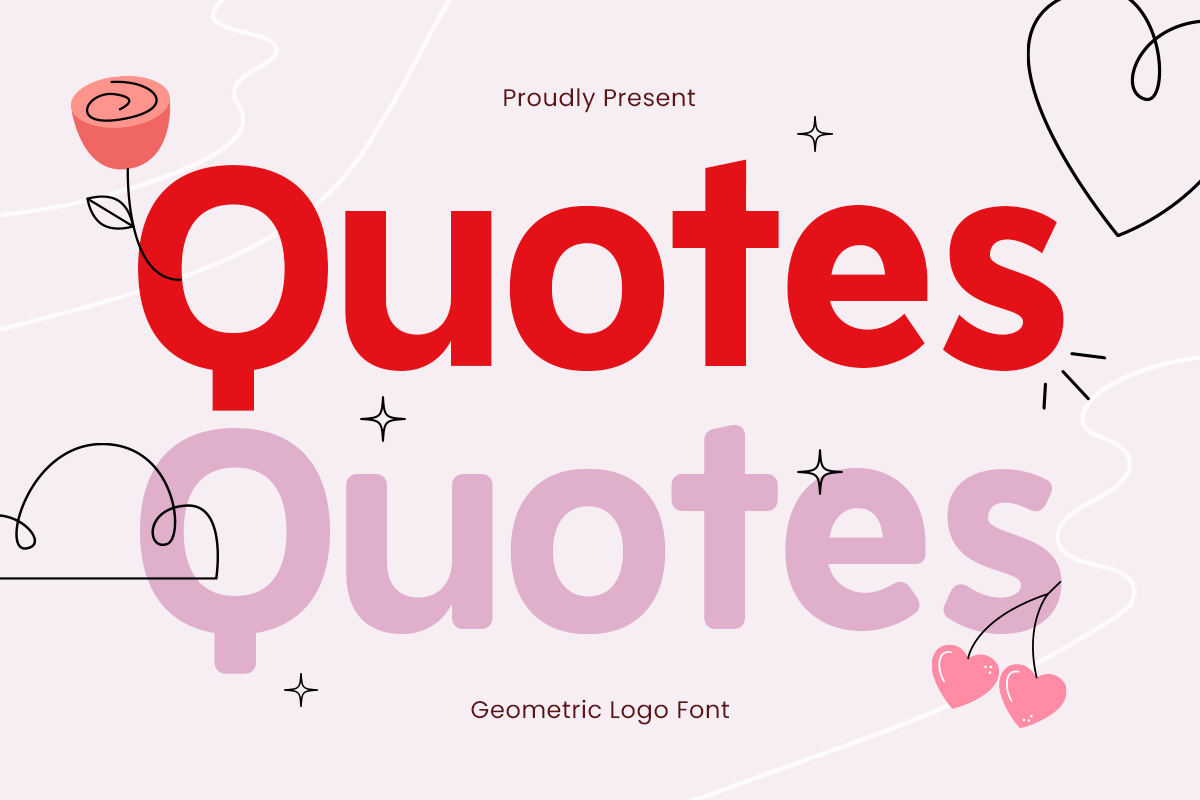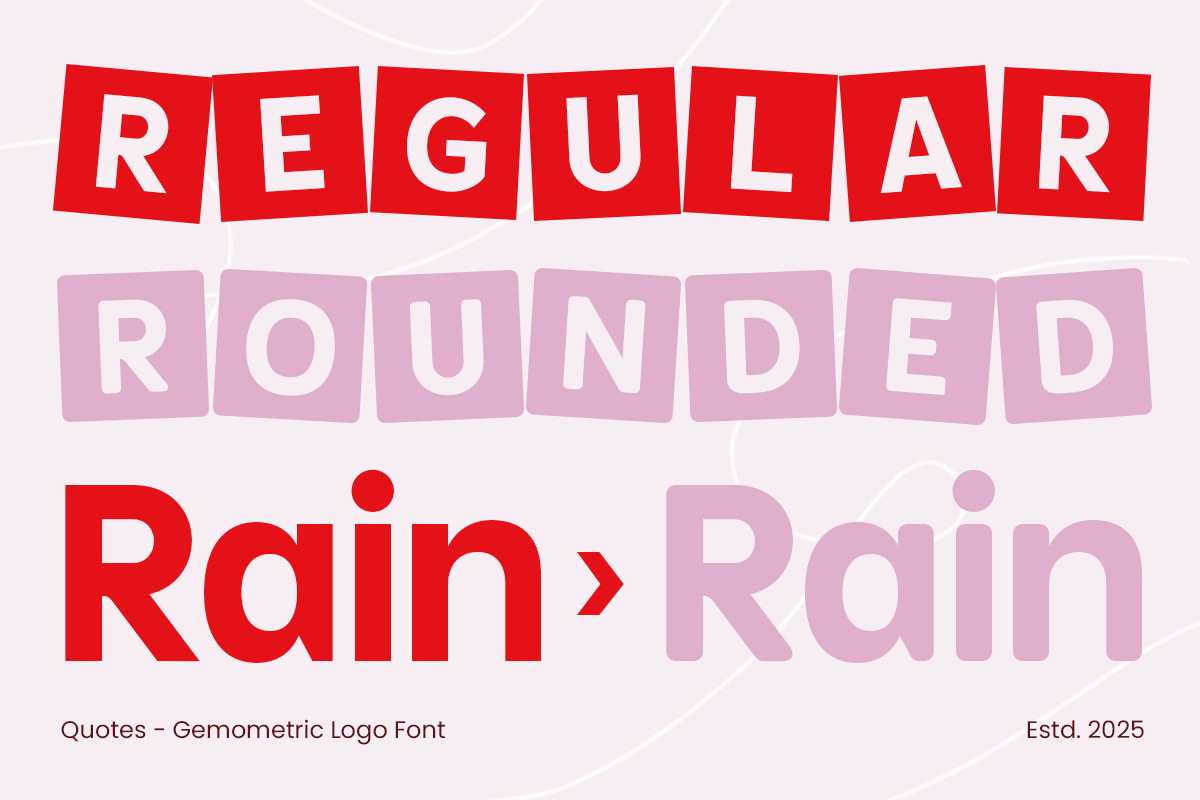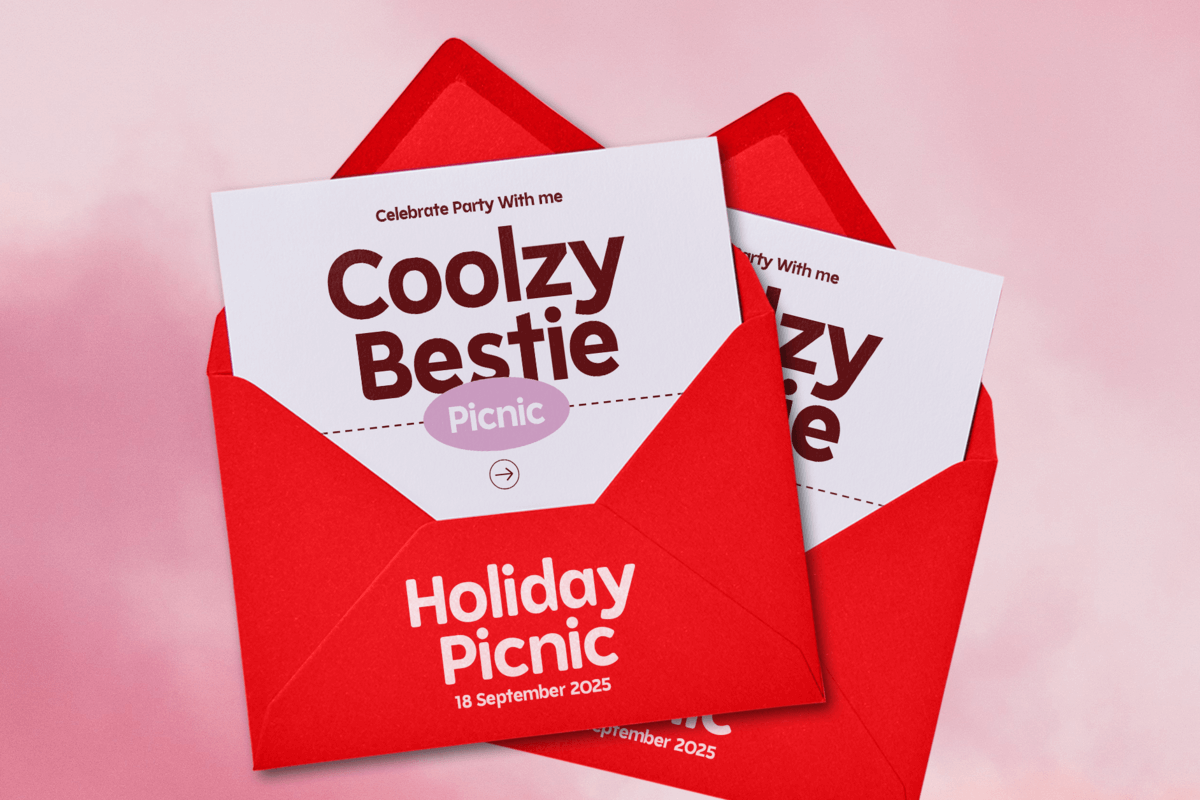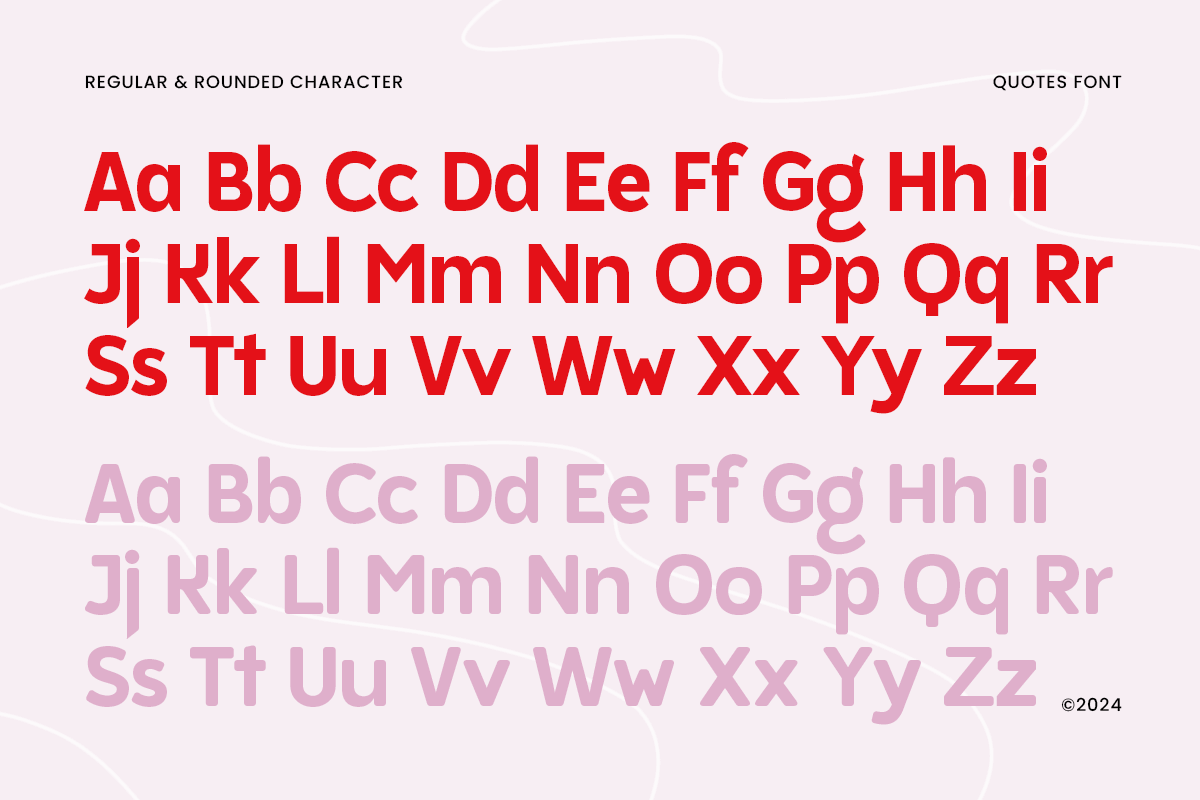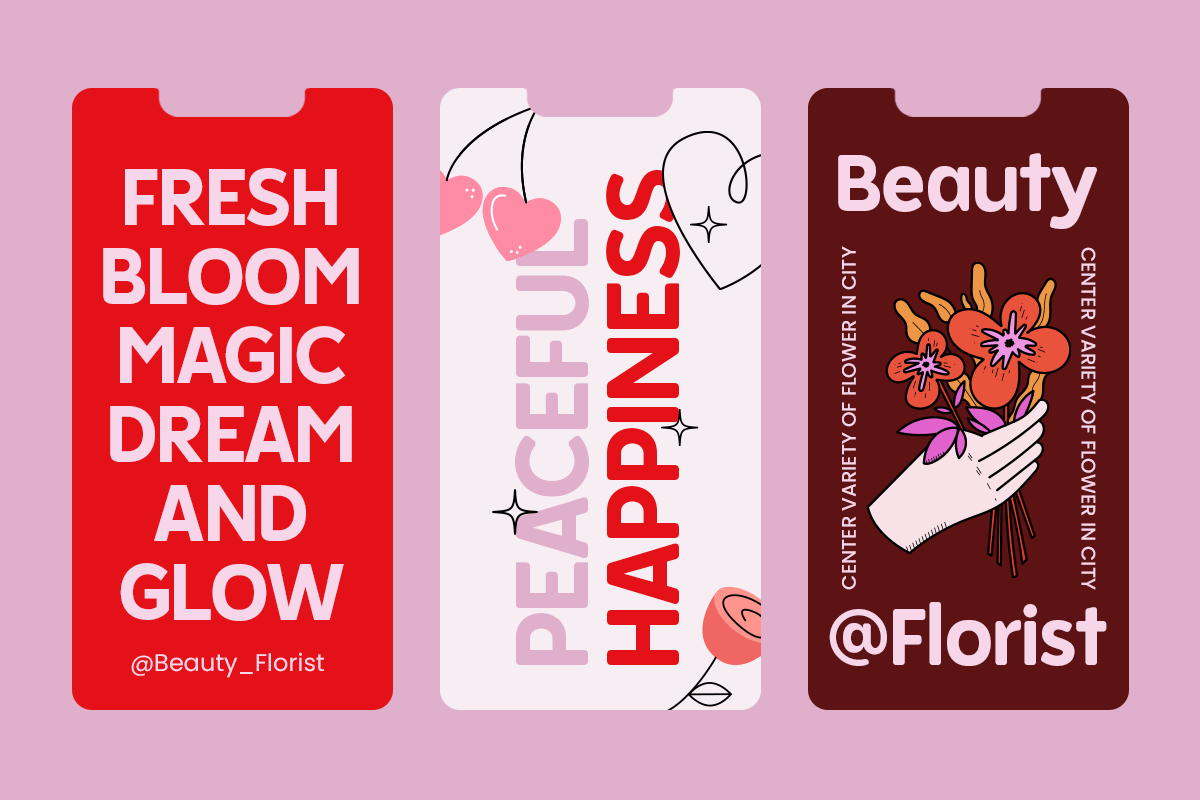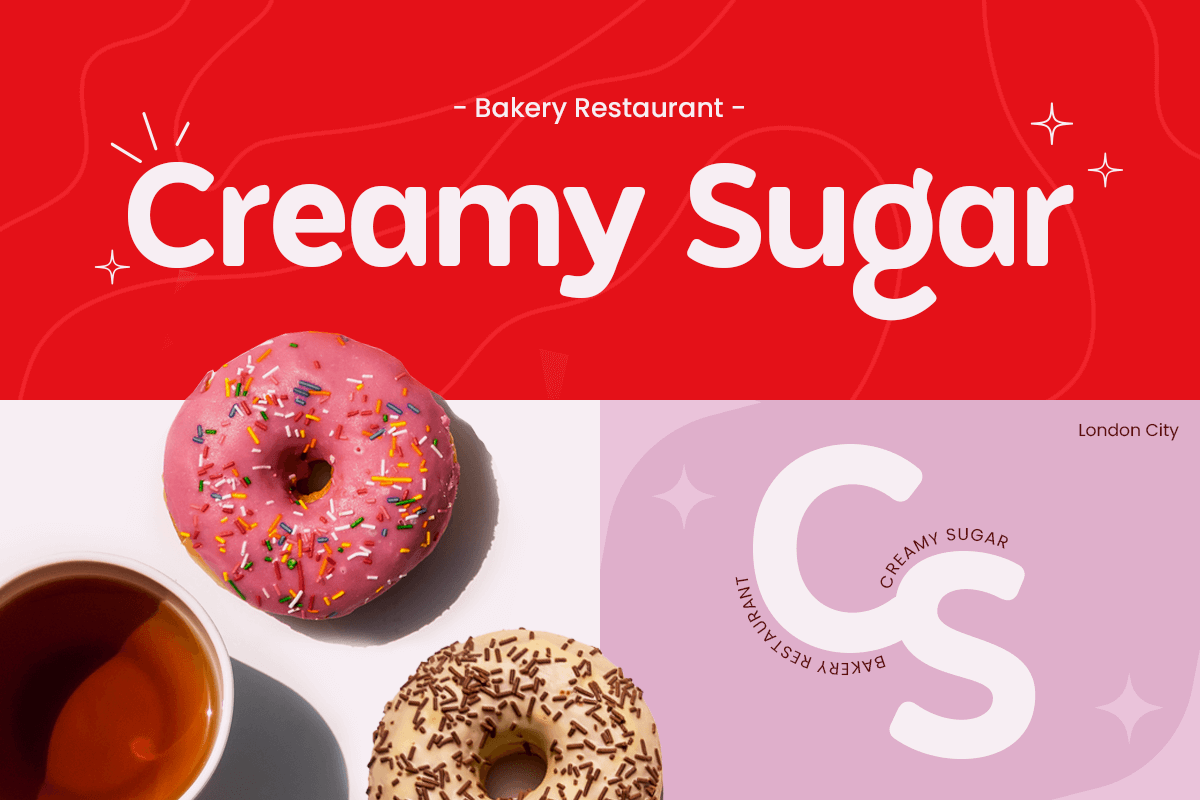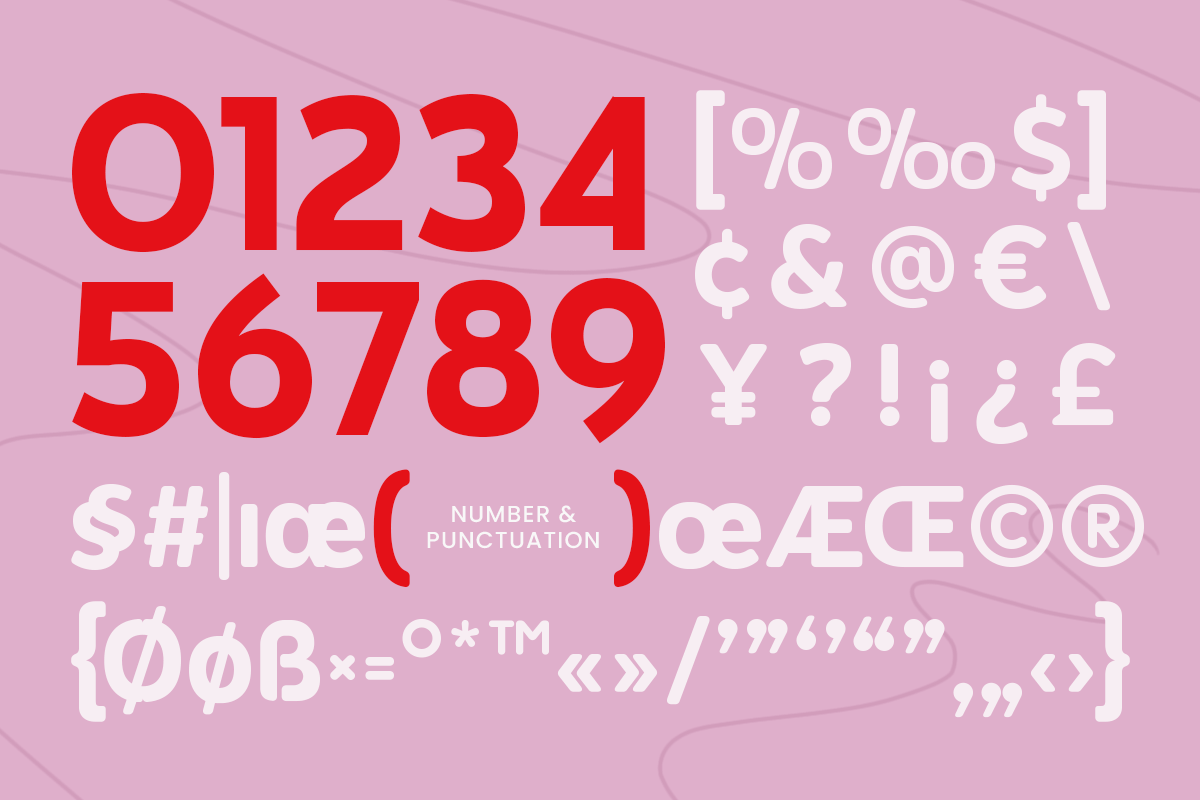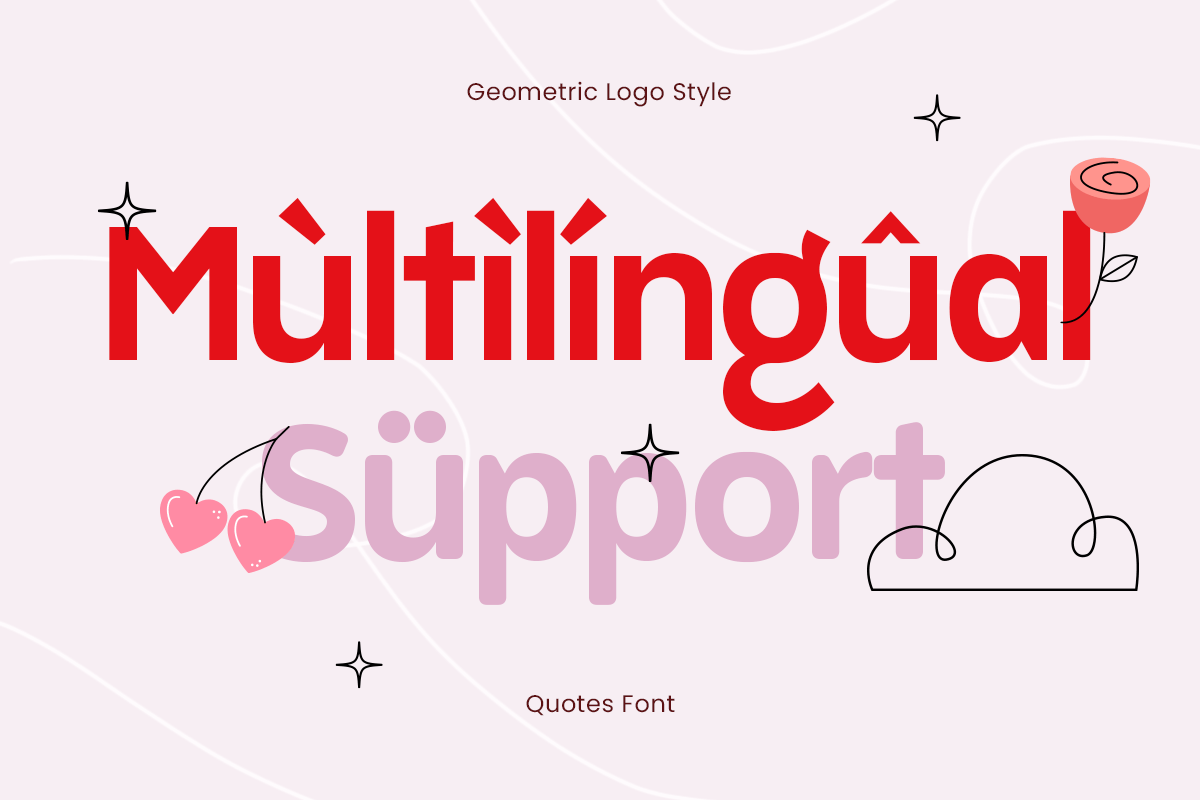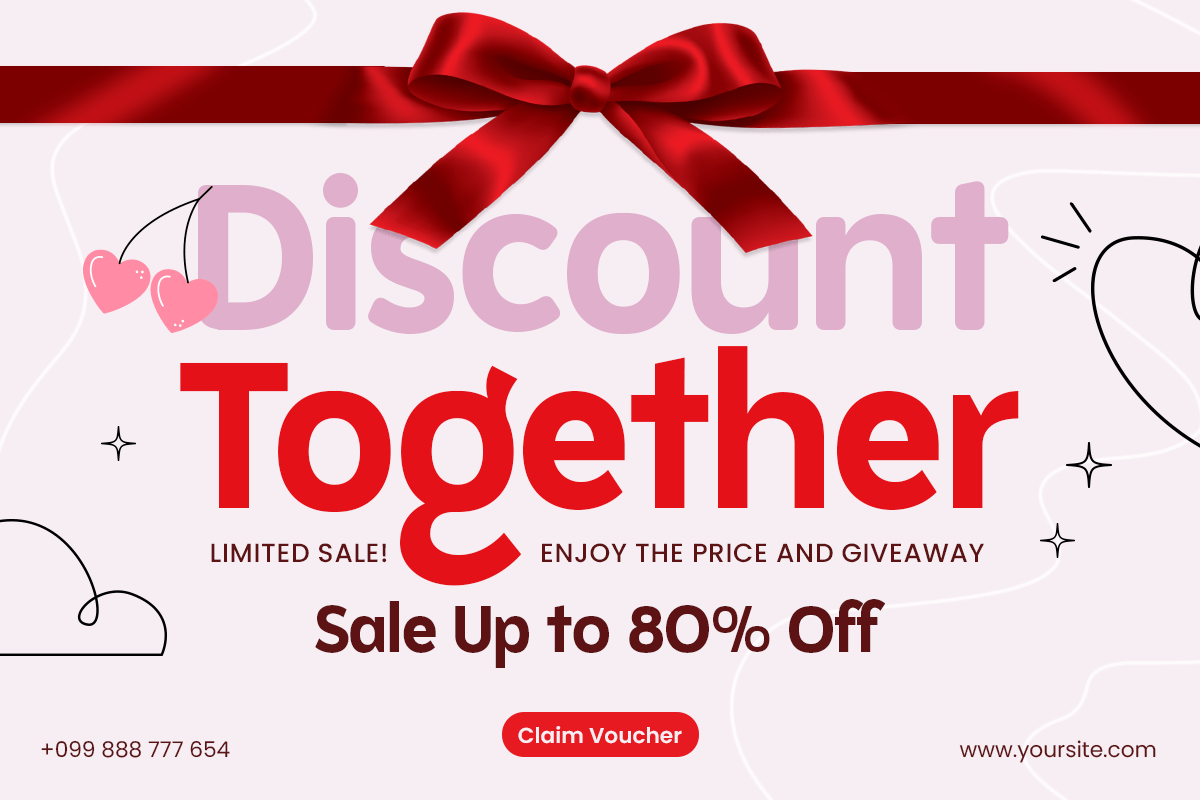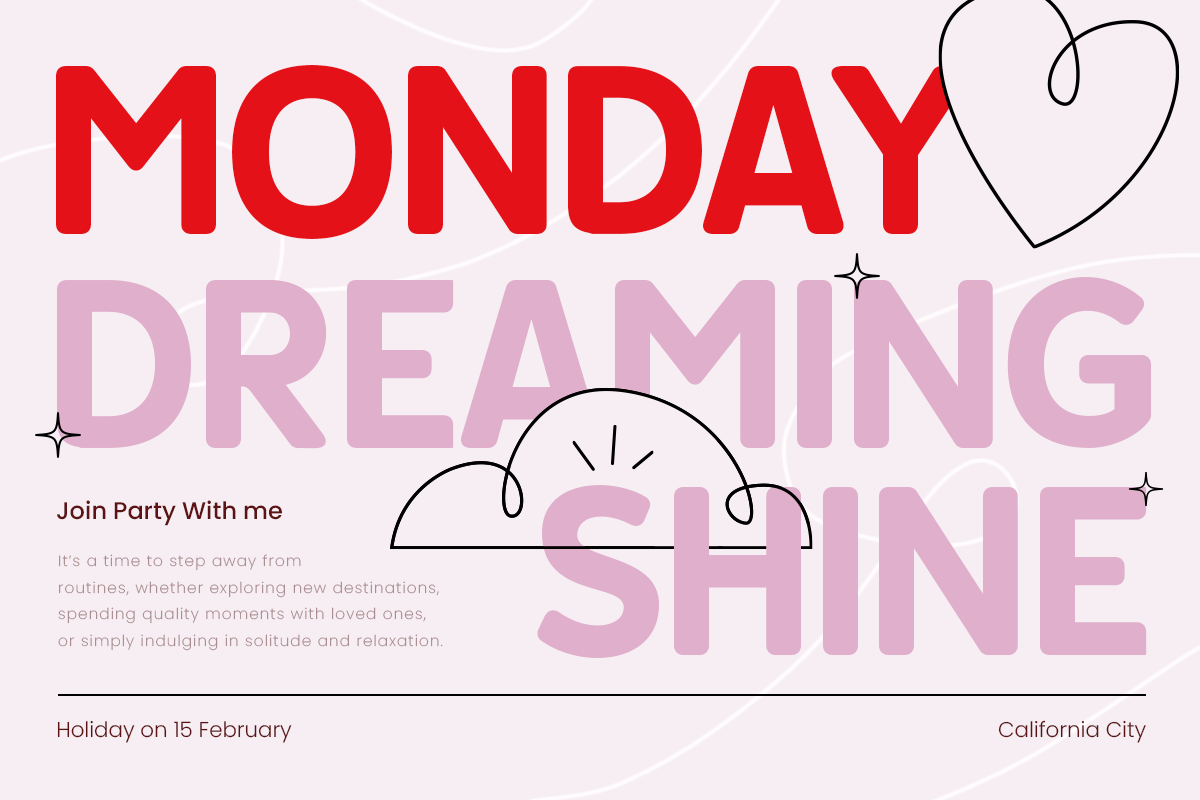
Quotes – Geometric Feminine Women Day Font
Inspired by the strength and grace of women, Quotes is a geometric font designed to celebrate creativity and empowerment. Its clean lines and balanced structure reflect modernity while maintaining a touch of softness, making it perfect for Women’s Day projects and beyond.
Quotes offers a unique blend of modern typography and geometric precision. Whether you are working on branding, editorial design, social media graphics, or promotional materials, this font provides a sleek and stylish aesthetic. Its versatility allows it to adapt seamlessly to various design needs, from minimalist layouts to bold statements.
With a refined appearance and contemporary feel, Quotes is not just a font but a tribute to modern femininity. Elevate your designs with this geometric typeface, perfect for headlines, logos, packaging, invitations, and more. Let Quotes add sophistication and clarity to your creative projects.
Quotes – Geometric Women Day Font Features:
- Ready with Regular & Rounded Characters
Multilingual Characters available for:
Afrikaans, Albanian, Asu, Basque, Bemba, Bena, Breton, Chiga, Cornish, Dutch, English, Estonian, Filipino, Finnish, Friulian, Galician, German, Gusii, Indonesian, Irish, Italian, Kabuverdianu, Kalenjin, Kinyarwanda, Luo, Luxembourgish, Luyia, Machame, Makhuwa-Meetto, Makonde, Malagasy, Manx, Morisyen, North Ndebele, Nyankole, Oromo, Portuguese, Quechua, Romansh, Rombo, Rundi, Rwa, Samburu, Sango, Sangu, Scottish Gaelic, Sena, Shambala, Shona, Soga, Somali, Spanish, Swahili, Swedish, Swiss.